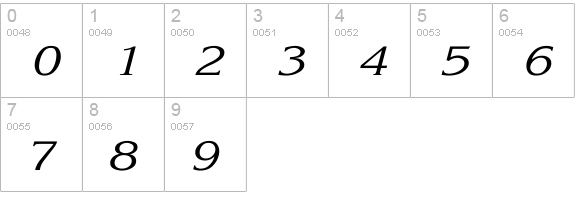
Korinna-KursivRegular Wd Font Details
Korinna-KursivRegular Wd is a stunning font that exudes elegance and sophistication. Its flowing and graceful design makes it perfect for adding a touch of class to any project. This font is versatile and can be used for a wide range of design purposes, from invitations to logos to branding materials. What makes Korinna-KursivRegular Wd even more appealing is that it is available for free download at FontsMarket.com. This means you can access this beautiful font without any cost, making it a fantastic choice for designers on a budget. Whether you are looking to elevate your design projects or simply want to add a touch of style to your creations, Korinna-KursivRegular Wd is the perfect choice. Download it for free today and start using this exquisite font to bring your designs to life.